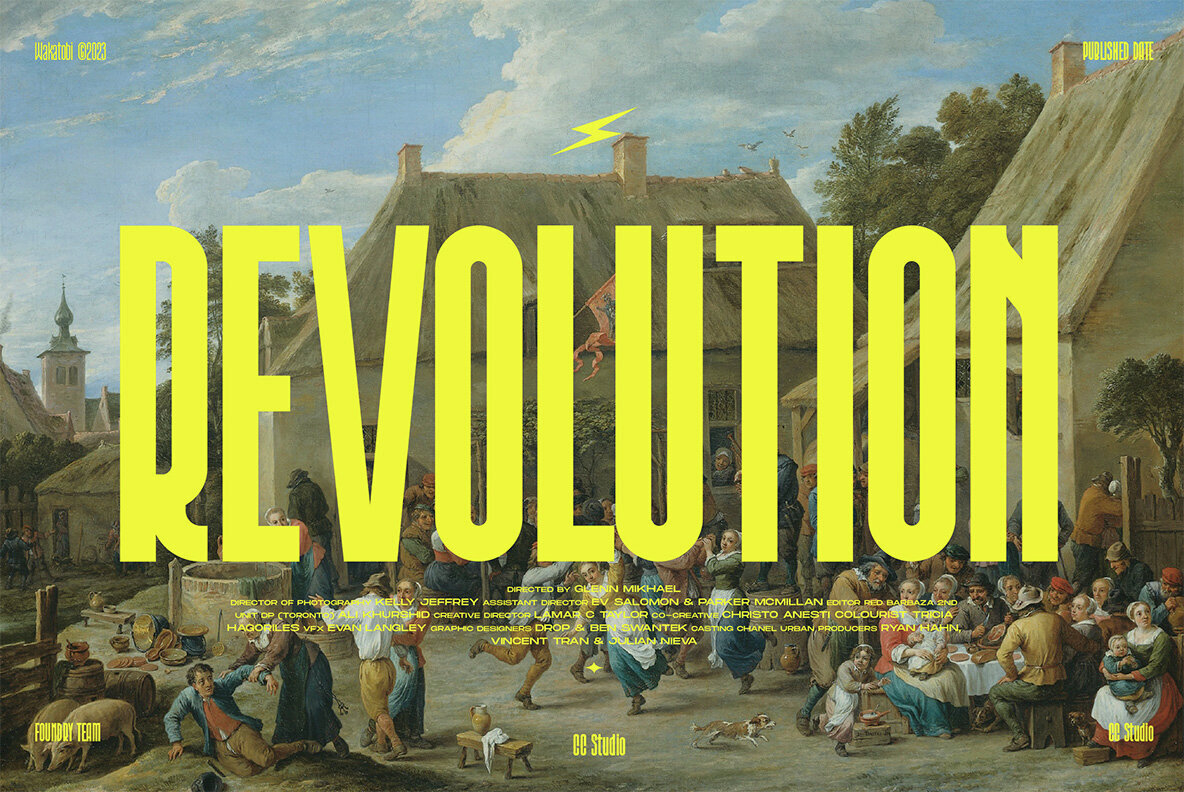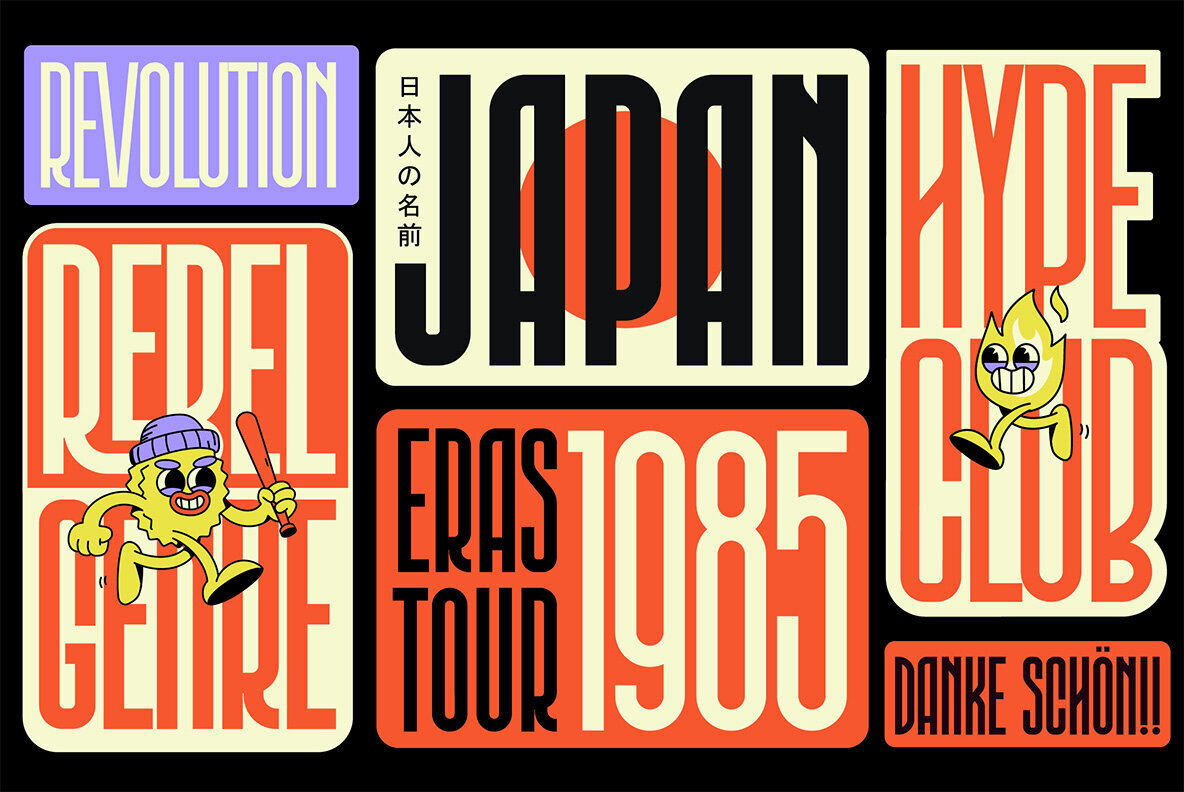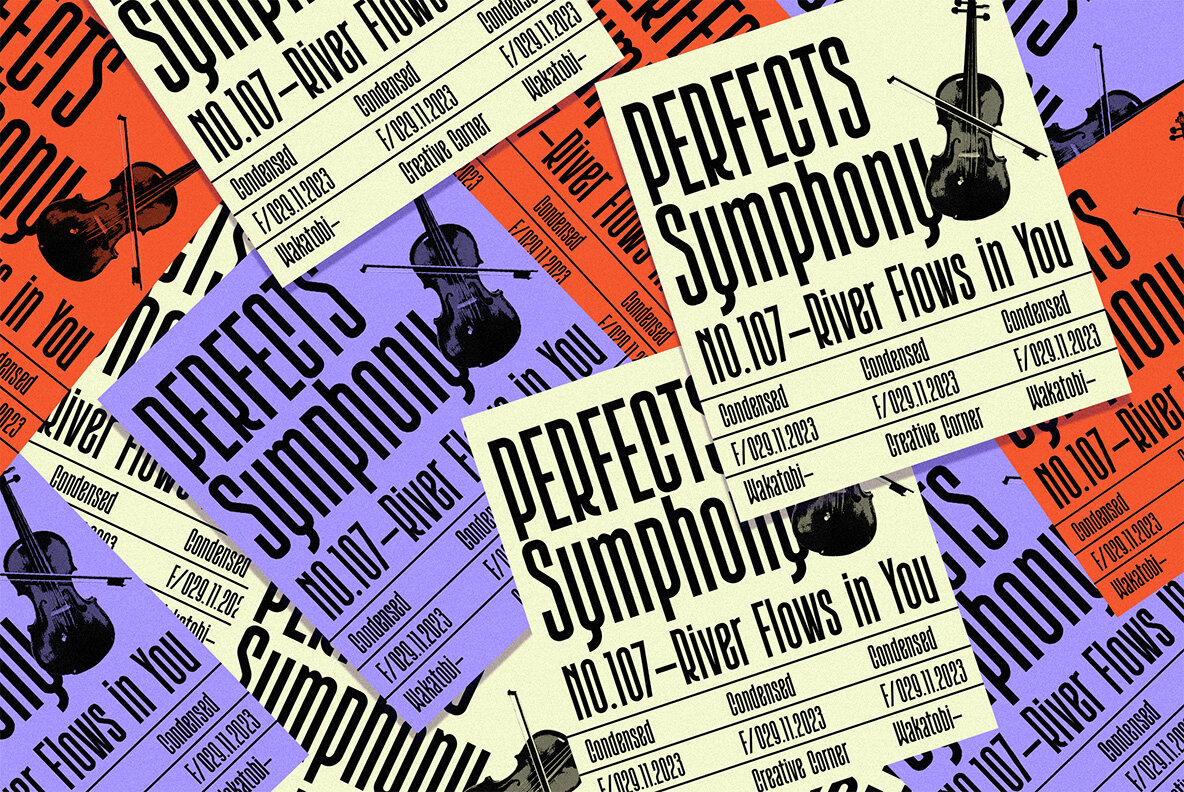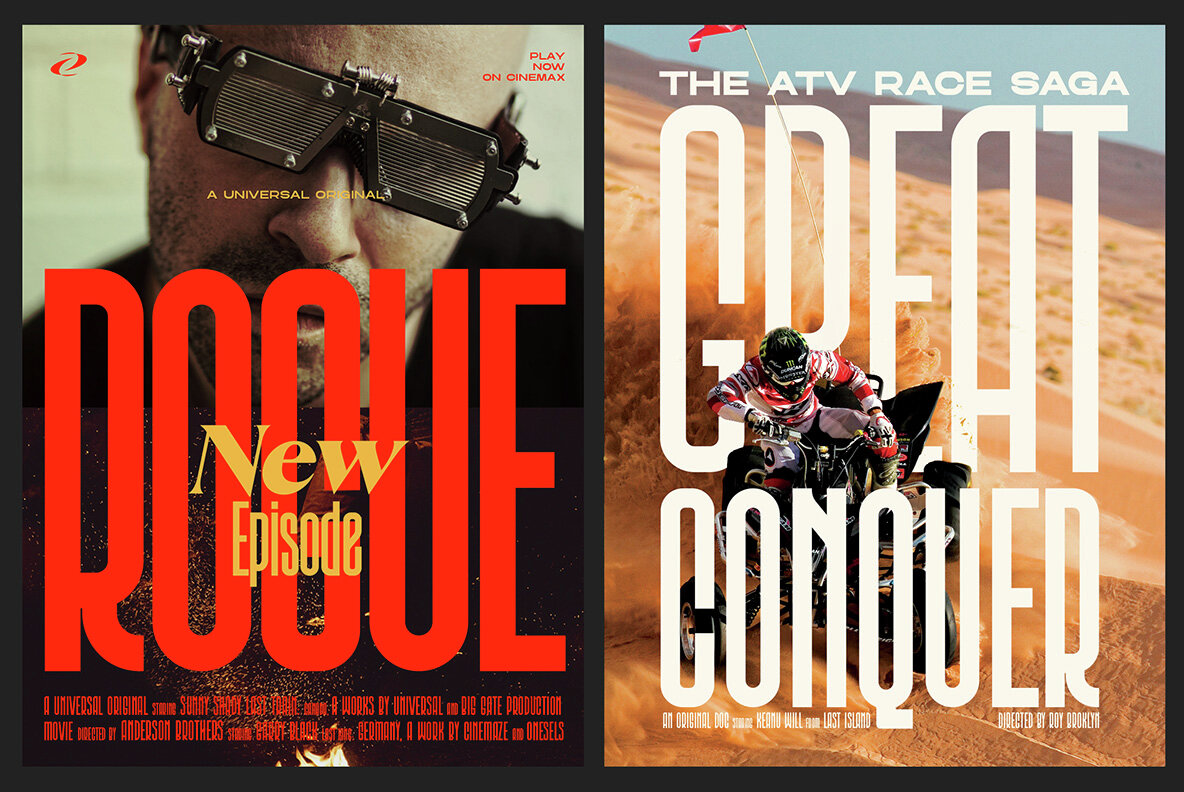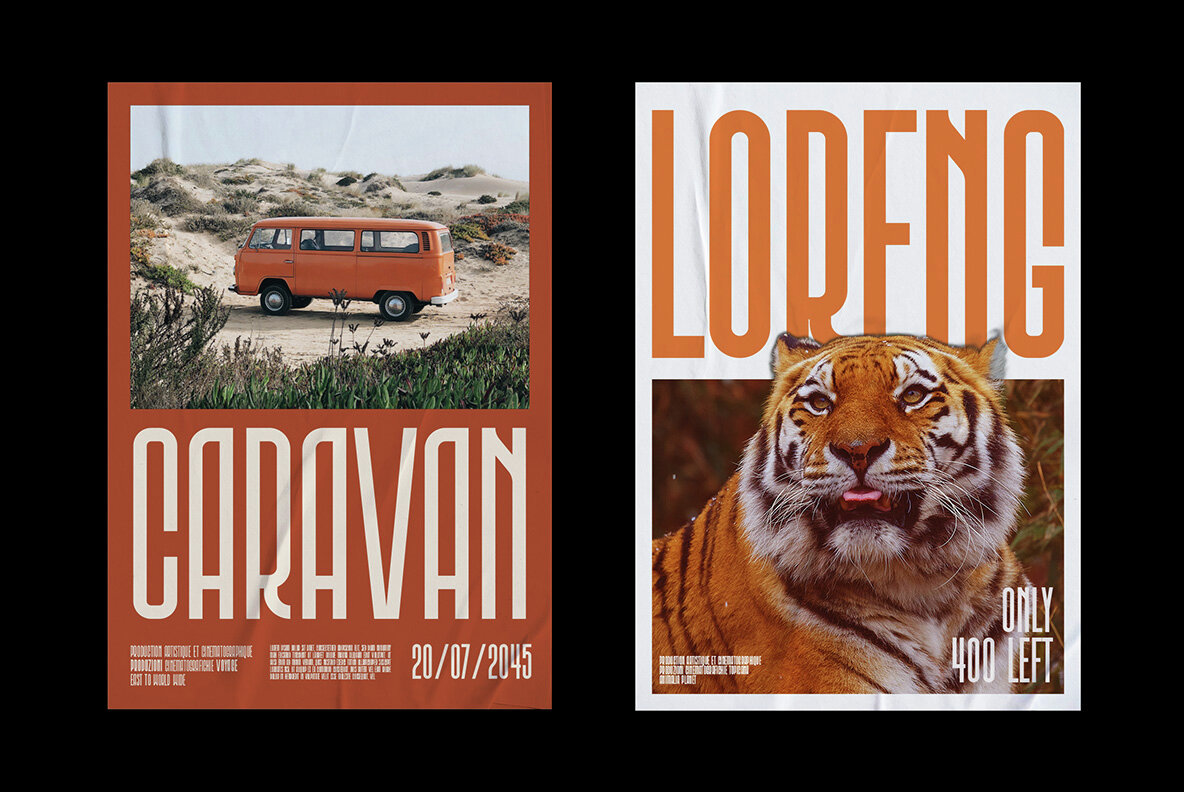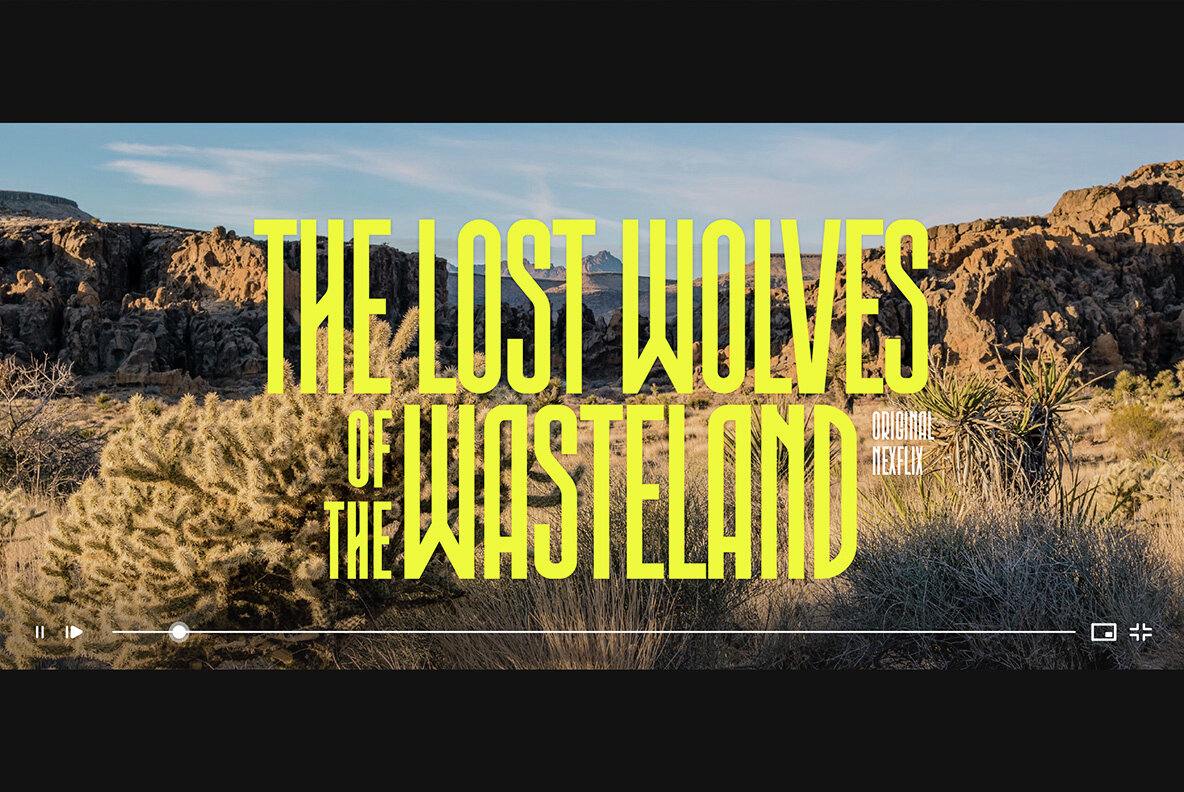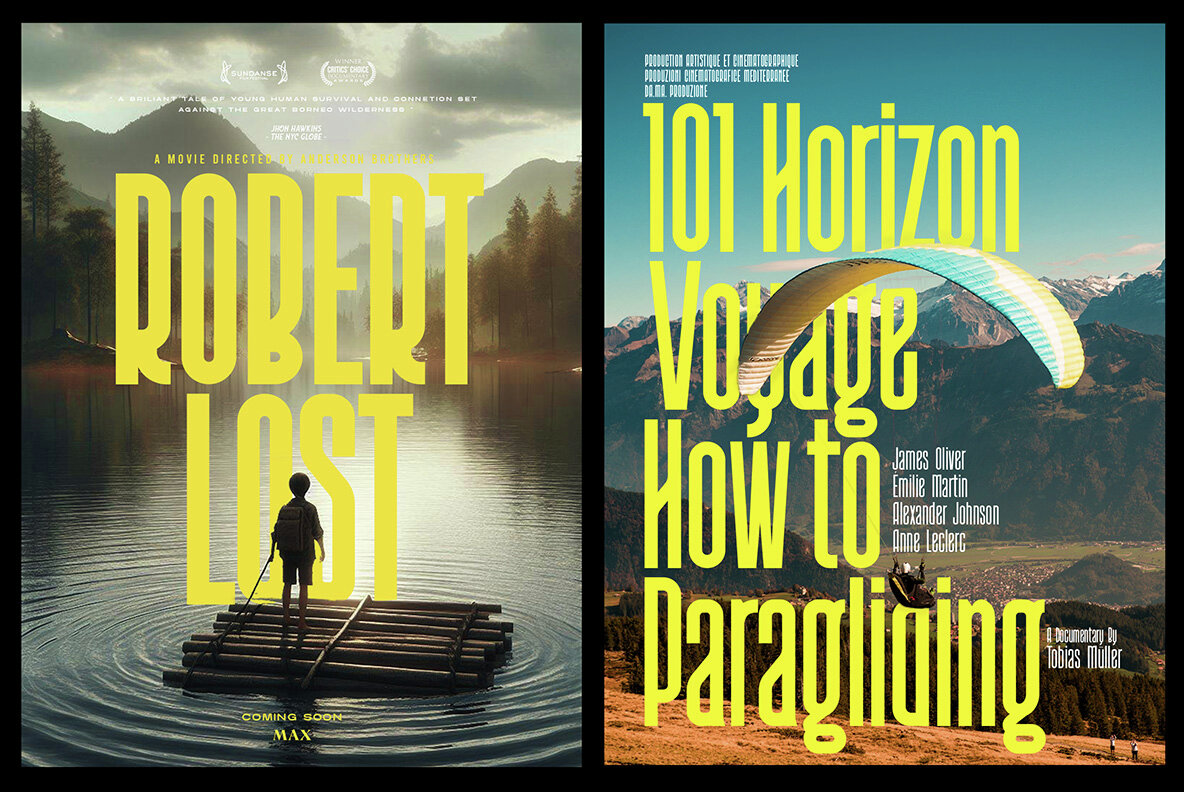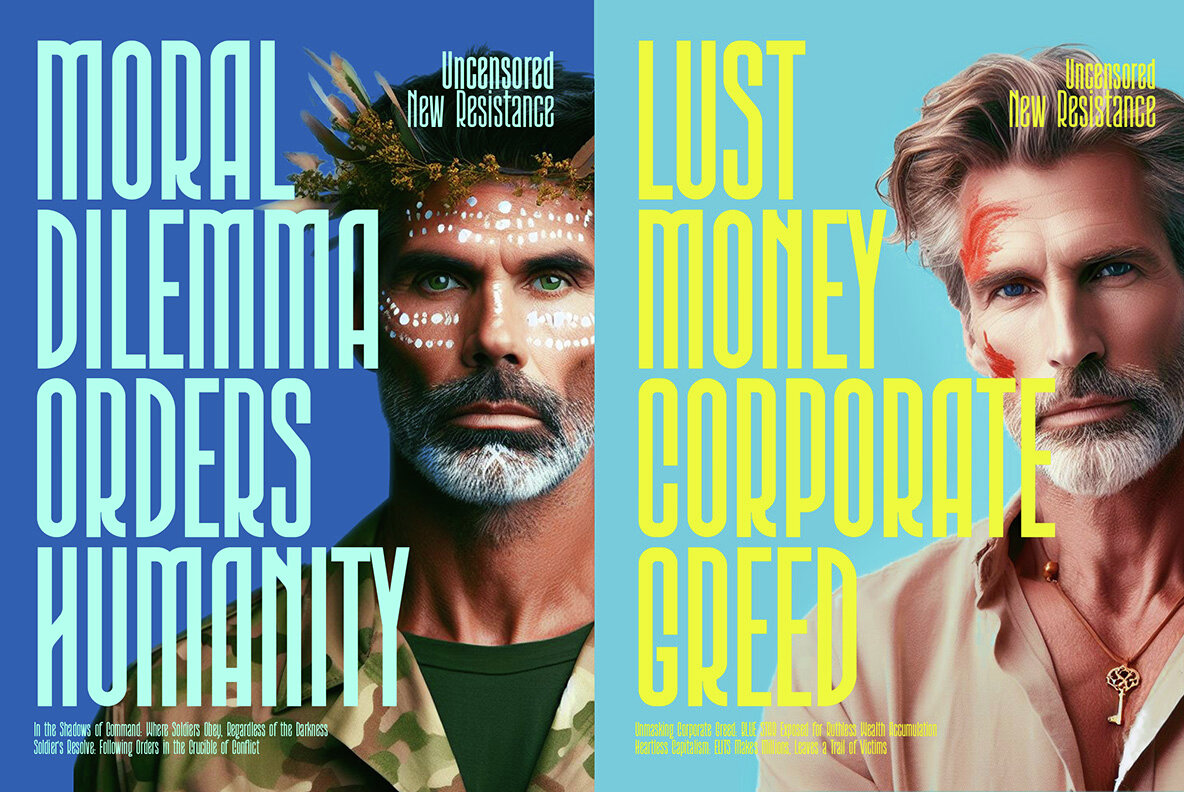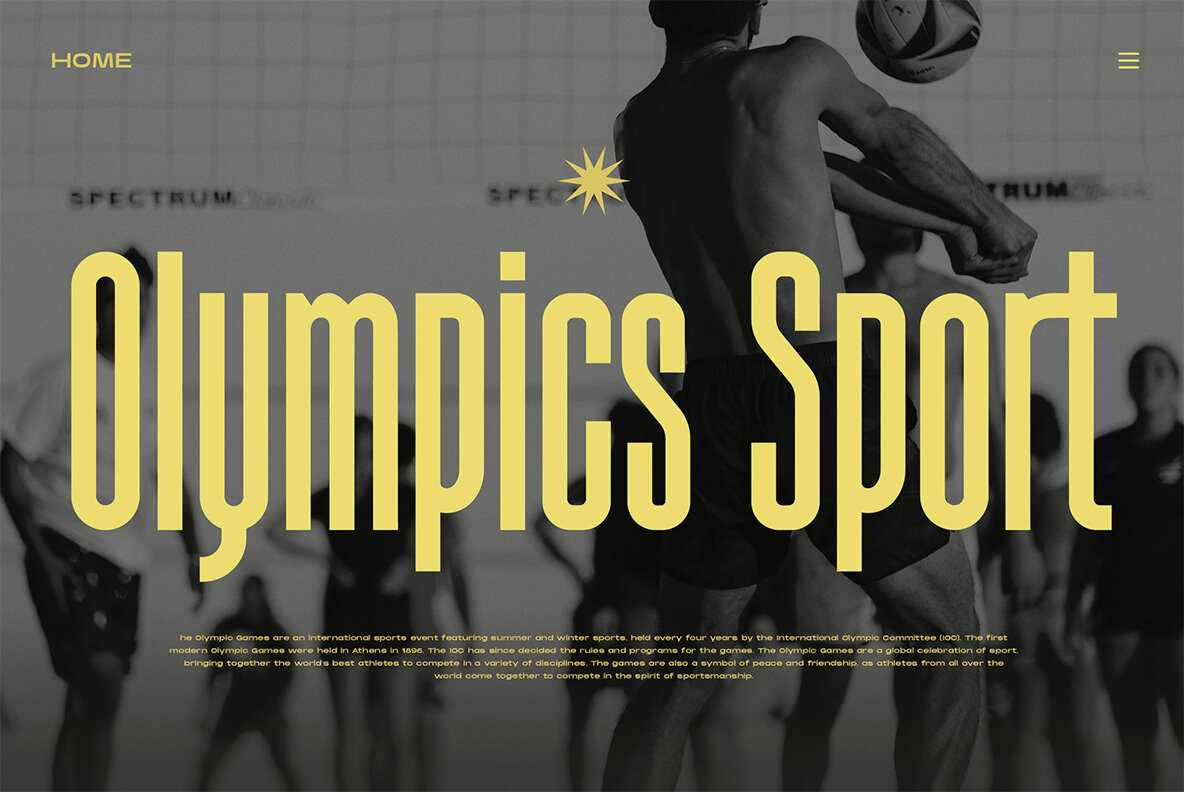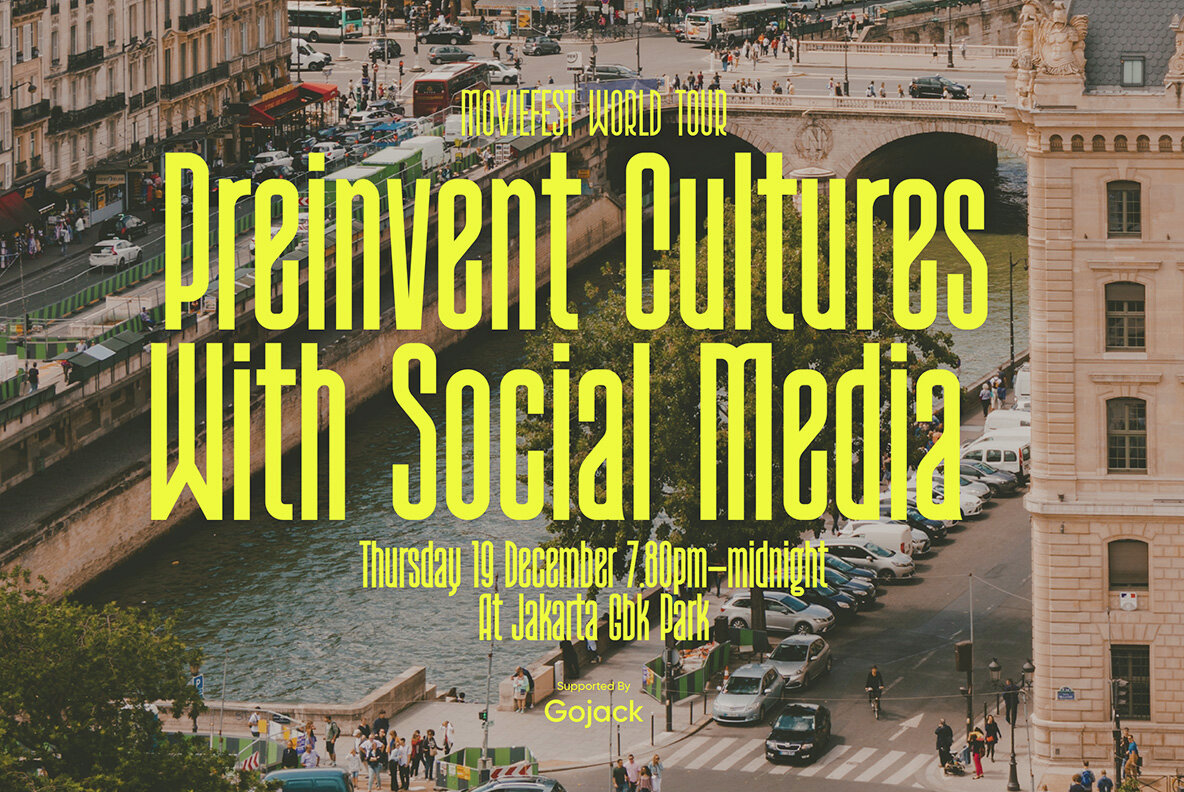
Wakatobi Font
Introducing Wakatobi, our newest font creation that exudes power and beauty through its condensed sans serif display. With a distinctive character and unique form, Wakatobi is a formidable typeface designed to captivate attention. Ideal for magazine spreads, covers, and posters in large print, this massive font is tailored for titles and wide spaces. Specifically crafted for covers and posters, Wakatobi ensures it doesn't go unnoticed, making a bold impact without compromising style or legibility. Whether in large-scale designs or smaller point sizes, Wakatobi stands out, delivering a visual punch that resonates with both impact and elegance. Features: